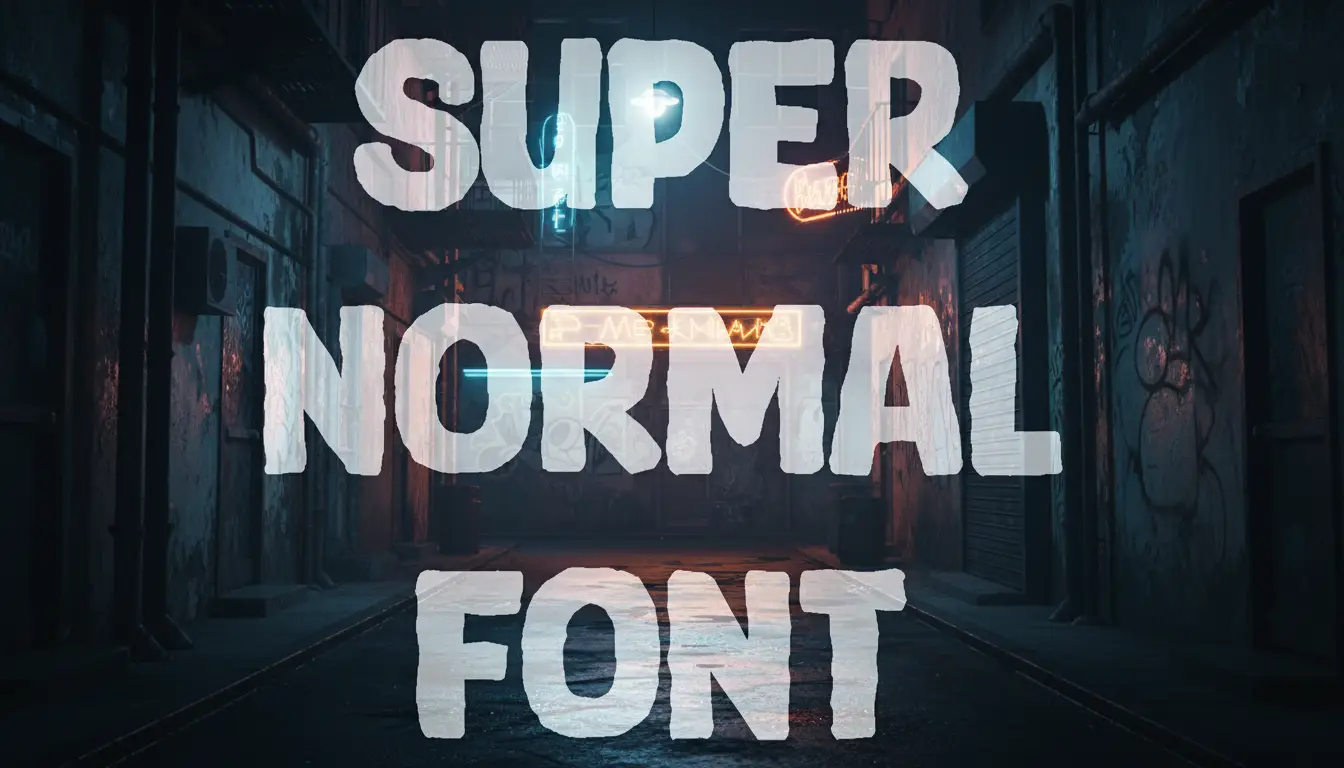
Super Normal Font
Super Normal
Super Normal is a fancy font. Bold and full of character, it's built to stand out rather than blend in. You can download it for free and test it with your own words in the preview above.
What You Can Type With Super Normal
With complete upper and lowercase letters and all ten digits, Super Normal is ready for real wording, not just a single headline. Everyday marks like &, !, ? and @ are there too. Thanks to its accented letters, it also works for Spanish, French, German, Portuguese and Italian, not just English.
Where Super Normal Works Best
Designers usually reach for fonts like Super Normal when they're making posters, logos and eye-catching headlines. Use it for one standout word or headline and let simpler fonts handle the rest.
Does Super Normal support accented letters?
Yes. Super Normal includes the accented letters needed for Spanish, French, German, Portuguese and Italian, so it works for more than just English.